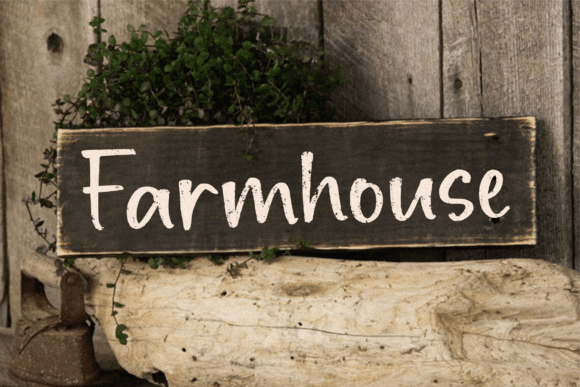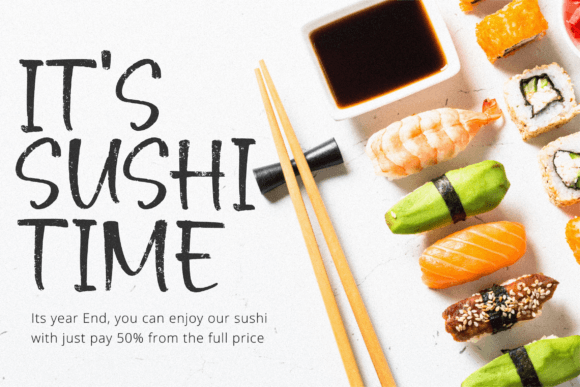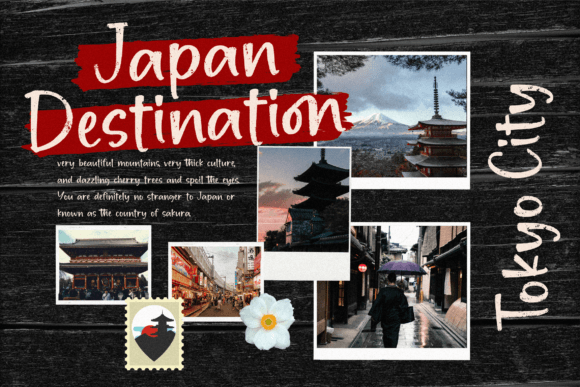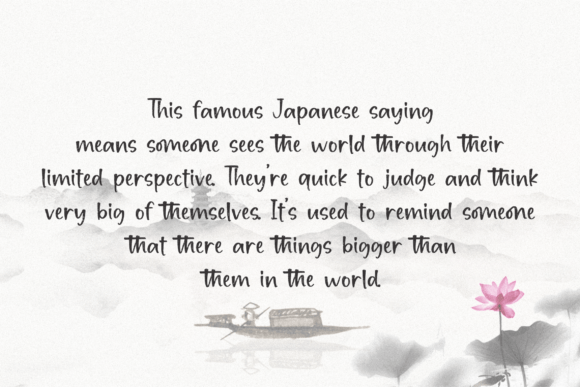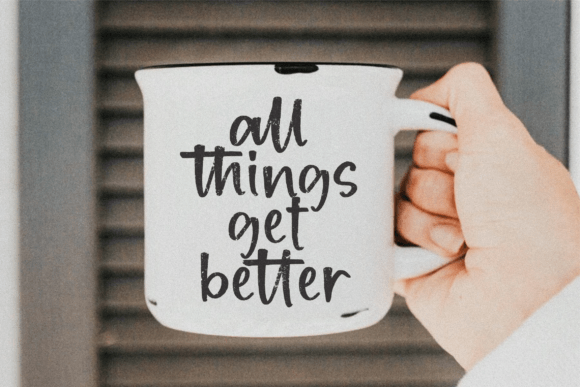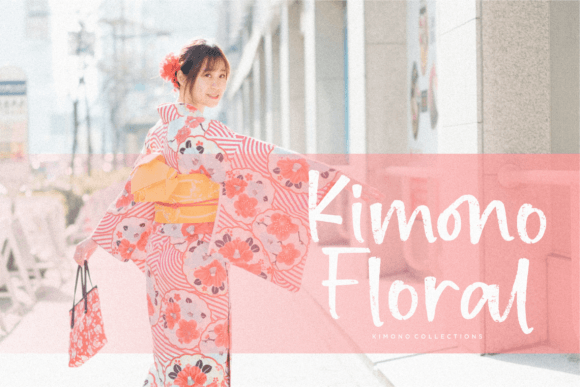
Introducing Hayamichi Font: The Perfect Handwritten Brush Font for Creative Projects
Are you a designer or crafter looking for a unique and expressive font to elevate your creative projects? Look no further than Hayamichi, a beautiful handwritten brush font that’s perfect for a wide range of applications. From product packaging and branding to magazines, social media, and weddings, Hayamichi is the ideal choice for anyone seeking to add a touch of personality and style to their work.
What is Hayamichi Font?
Hayamichi is a carefully crafted handwritten brush font that exudes warmth, elegance, and sophistication. With its smooth, flowing strokes and subtle imperfections, this font is reminiscent of traditional brush calligraphy. Its unique character makes it an excellent choice for designers and crafters who want to add a personal touch to their projects.
Key Features of Hayamichi Font
- Handwritten Brush Style: Hayamichi boasts a beautiful, handwritten brush style that’s perfect for creating eye-catching headlines, titles, and quotes.
- Perfect for Product Packaging: With its elegant and sophisticated design, Hayamichi is ideal for product packaging, labeling, and branding projects.
- Magazine and Social Media Friendly: This font is also well-suited for magazine articles, social media graphics, and blog posts, where its unique character can help grab attention and engage readers.
- Wedding and Event Planning: Hayamichi’s romantic and whimsical feel makes it a popular choice for wedding invitations, event branding, and stationery.
Why Choose Hayamichi Font?
With so many fonts available, why choose Hayamichi? Here are just a few reasons why designers and crafters love this font:
- Unique and Expressive: Hayamichi’s handwritten brush style gives your text a distinctive, one-of-a-kind look that sets it apart from more traditional fonts.
- Versatile: This font can be used in a wide range of creative projects, from digital designs to print materials.
- Easy to Read: Despite its artistic style, Hayamichi is surprisingly legible, making it perfect for both headlines and body text.
How to Use Hayamichi Font in Your Projects
Ready to get started with Hayamichi? Here are a few tips for incorporating this beautiful font into your designs:
- Pair it with Other Fonts: Combine Hayamichi with other fonts to create striking contrast and visual interest.
- Experiment with Colors: Take advantage of Hayamichi’s elegant design by pairing it with a range of colors and textures.
- Use it for Headlines and Titles: Hayamichi’s bold, expressive style makes it perfect for headlines, titles, and quotes.
- Add a Personal Touch: Use Hayamichi to add a personal, hand-crafted feel to your designs, whether you’re creating business cards, invitations, or product labels.
Hayamichi font is a versatile, elegant, and expressive handwritten brush font that’s perfect for designers and crafters looking to add a touch of personality to their projects. With its smooth strokes, subtle imperfections, and romantic feel, Hayamichi is ideal for a wide range of creative applications, from product packaging and branding to magazines, social media, and weddings. So why wait? Download Hayamichi font today and start elevating your designs with its unique, hand-crafted charm!